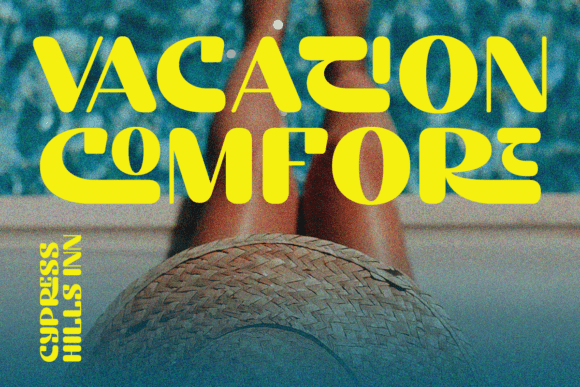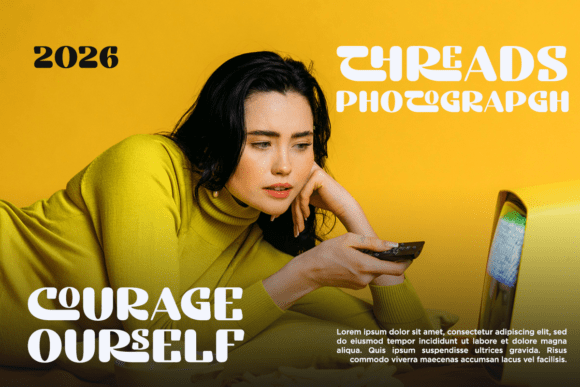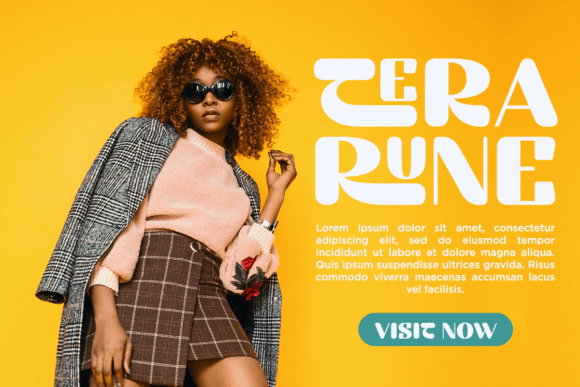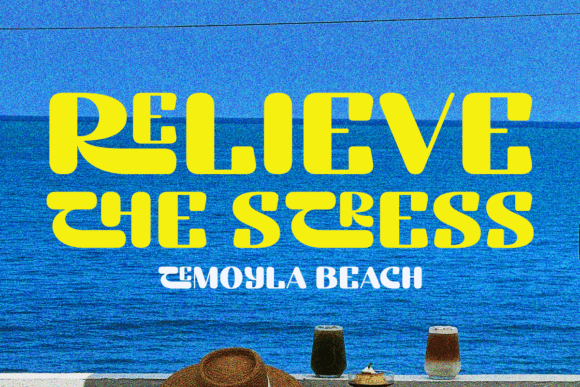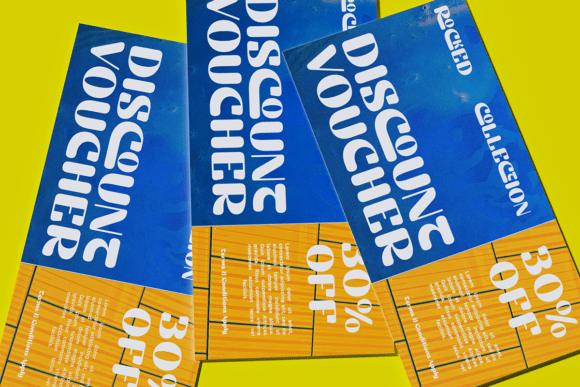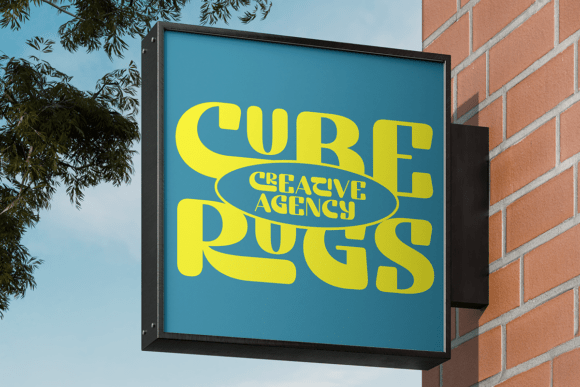
Introducing Gerhil Font: The Ultimate Modern Sans-Serif for Bold Designs
In the world of typography, fonts play a crucial role in shaping the visual identity of a design. Whether you’re working on a logo, branding materials, or marketing collateral, the right font can elevate your project from ordinary to extraordinary. Gerhil Font is a modern, bold sans-serif display font that has been designed to make a strong visual impact. With its smooth curves, wide letterforms, and confident presence, Gerhil is perfect for designs that need to stand out while staying clean and stylish.
Key Features of Gerhil Font
- Modern and Bold: Gerhil Font boasts a contemporary design with bold strokes that instantly grab attention. Its modern aesthetic makes it perfect for designs that require a fresh and updated look.
- Smooth Curves and Wide Letterforms: The font features smooth, flowing curves and wide letterforms that provide a sense of elegance and sophistication. These characteristics make Gerhil highly readable, even in larger sizes.
- Playful yet Professional: Gerhil strikes a perfect balance between a playful personality and a professional feel. This versatility allows it to be used in a variety of contexts, from creative projects to more formal applications.
- PUA Encoded for Easy Use: Gerhil Font is PUA (Private Use Area) encoded, which means you can easily access and use all alternate characters and decorative elements without any hassle. This feature is particularly useful for designers who want to experiment with different styles and variations.
Versatile Applications of Gerhil Font
Gerhil Font is incredibly versatile, making it suitable for a wide range of design projects. Here are some of the key areas where Gerhil can make a significant impact:
- Logos and Branding: Create a strong and memorable logo with Gerhil’s bold and confident style. The font’s modern look ensures that your brand stands out in a crowded marketplace.
- Fashion Editorials: Add a touch of glamour and sophistication to your fashion editorials with Gerhil’s elegant and stylish design.
- Posters and Magazine Covers: Gerhil’s bold presence makes it perfect for posters and magazine covers that need to capture attention quickly.
- Social Media Graphics: Elevate your social media graphics with Gerhil’s modern and playful style, making your content more engaging and shareable.
- Advertising: Use Gerhil to create compelling and effective advertisements that stand out and leave a lasting impression.
- Packaging Design: Add a professional and contemporary touch to your product packaging with Gerhil’s clean and stylish design.
- Website Headers: Enhance your website’s visual appeal with Gerhil’s bold and confident headers, making your site more inviting and engaging.
- Typography Quotes: Use Gerhil to create stunning typography quotes that add a touch of elegance and sophistication to your designs.
- Product Labels: Create eye-catching product labels with Gerhil’s modern and stylish design, making your products stand out on store shelves.
- Creative Headlines: Add a bold and playful touch to your creative headlines with Gerhil, making your content more engaging and attention-grabbing.
Why Choose Gerhil Font?
With so many fonts available, why should you choose Gerhil? Here are a few compelling reasons:
- Unique and Memorable: Gerhil’s bold and modern design ensures that your projects stand out and are remembered.
- Highly Versatile: Gerhil’s versatility makes it suitable for a wide range of design projects, from logos and branding to social media graphics and packaging design.
- Easy to Use: Gerhil’s PUA encoding makes it easy to access and use all alternate characters and decorative elements, saving you time and effort.
- Clean and Stylish: Gerhil’s clean and stylish design ensures that your projects look professional and polished, making it perfect for both digital and print use.
In conclusion, Gerhil Font is a powerful and versatile modern sans-serif display font that can elevate your designs to new heights. Its bold and confident style, smooth curves, and wide letterforms make it perfect for a wide range of applications. Whether you’re a designer, craftsperson, or simply someone who appreciates great typography, Gerhil is an excellent choice for anyone looking to create stunning and memorable designs.